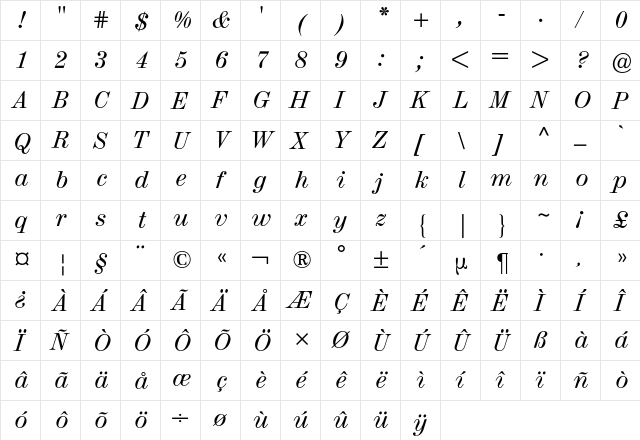
Madison BQ Regular Font Preview
Madison BQ Regular
Design Context for Madison BQ Typeface
Madison BQ offers clean, dependable letterforms without strong stylistic allegiance, making it a practical choice for designers who need flexibility.